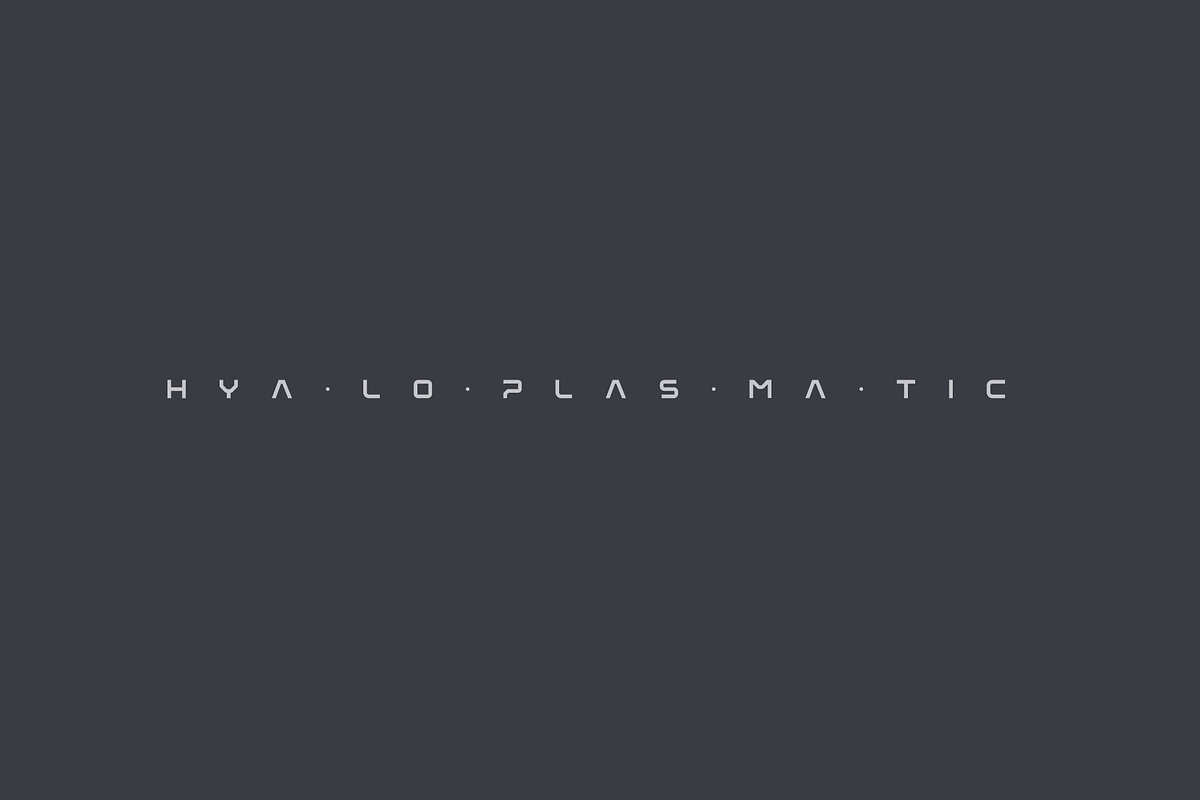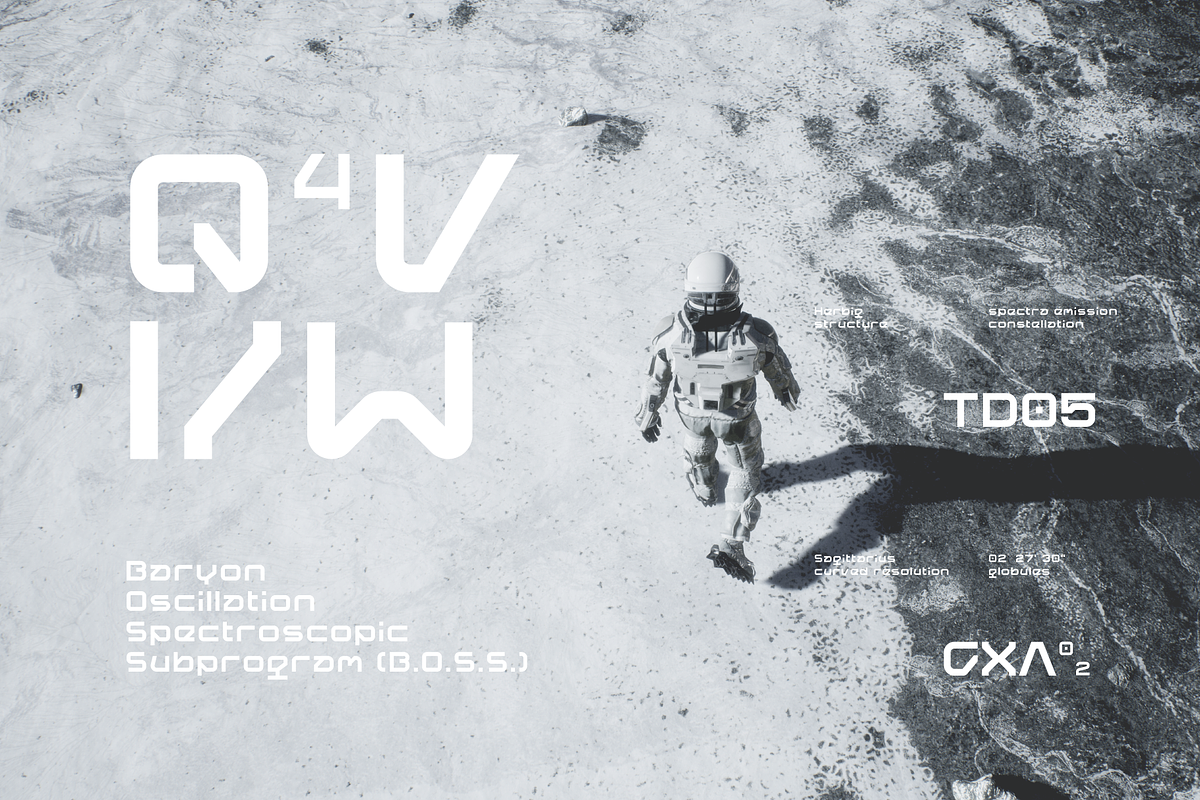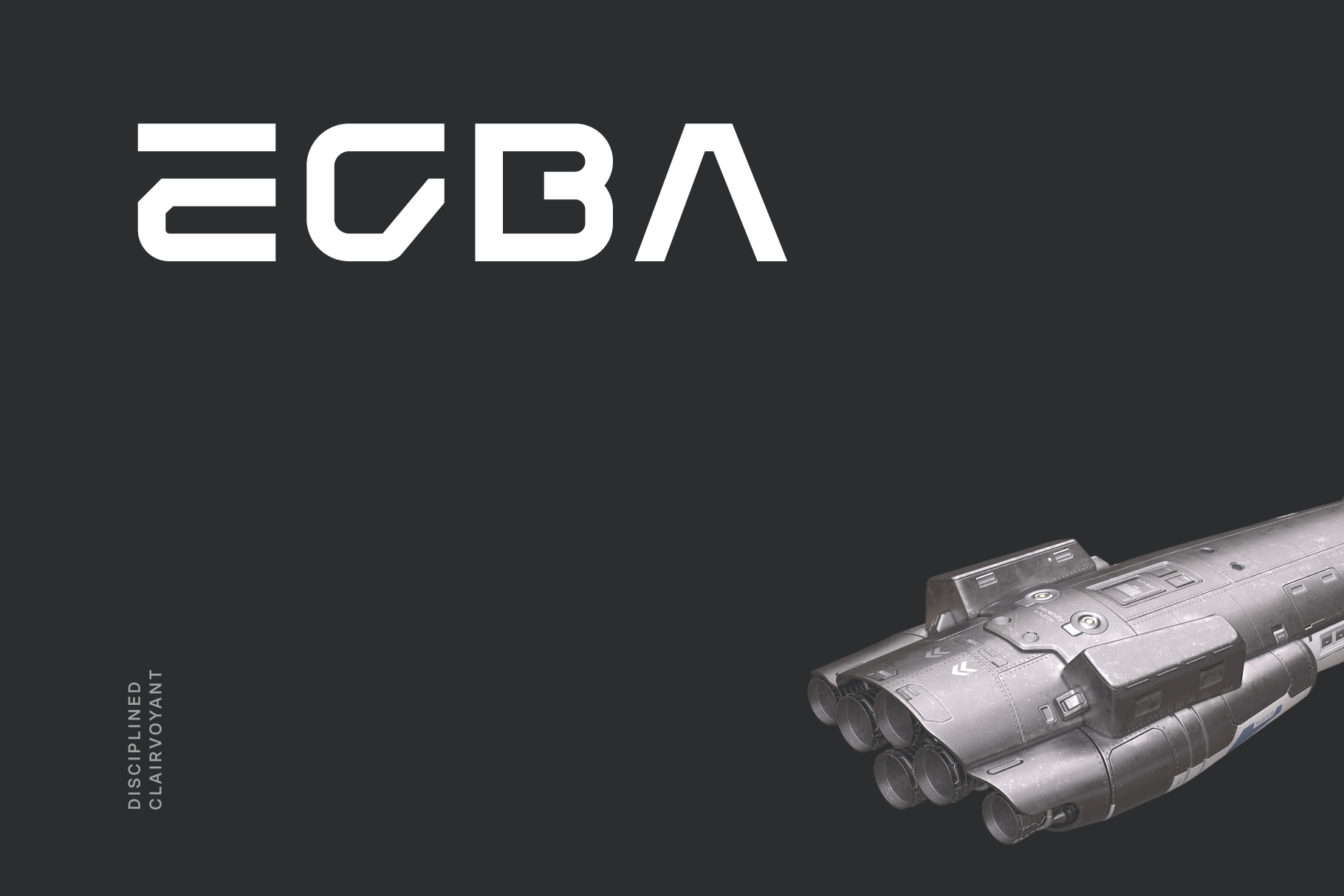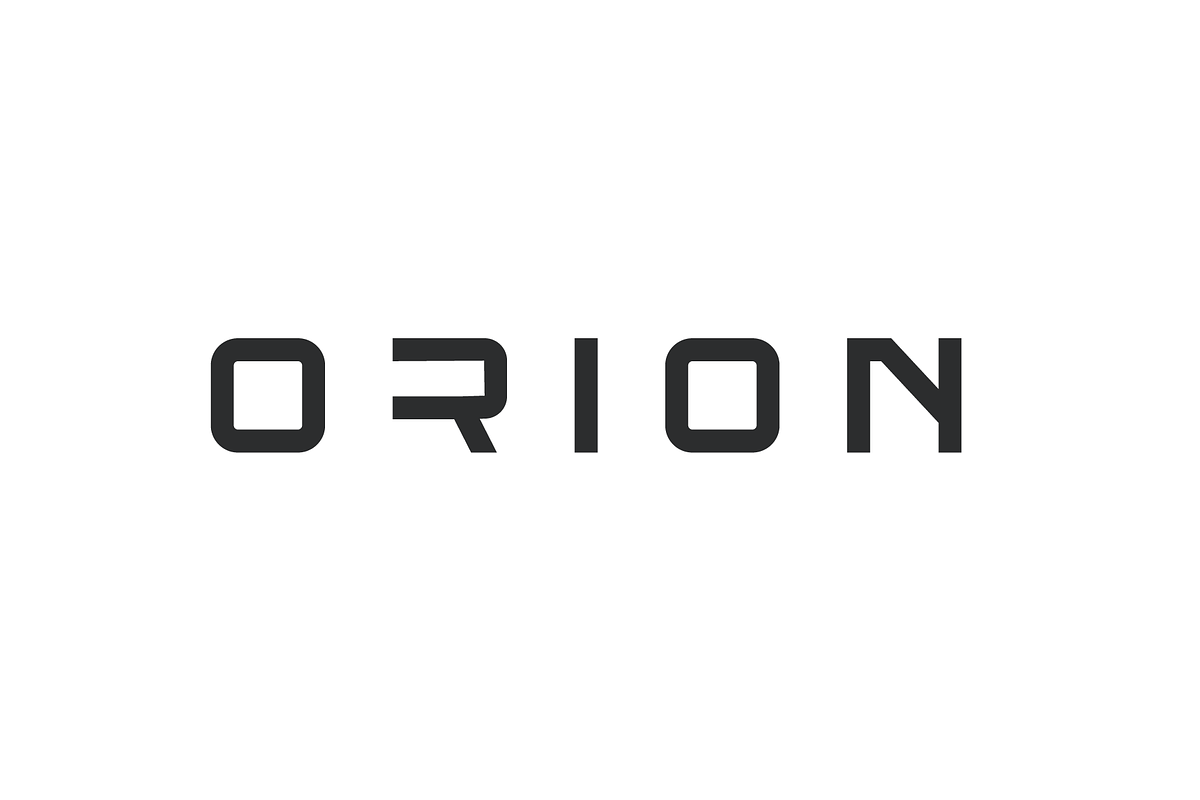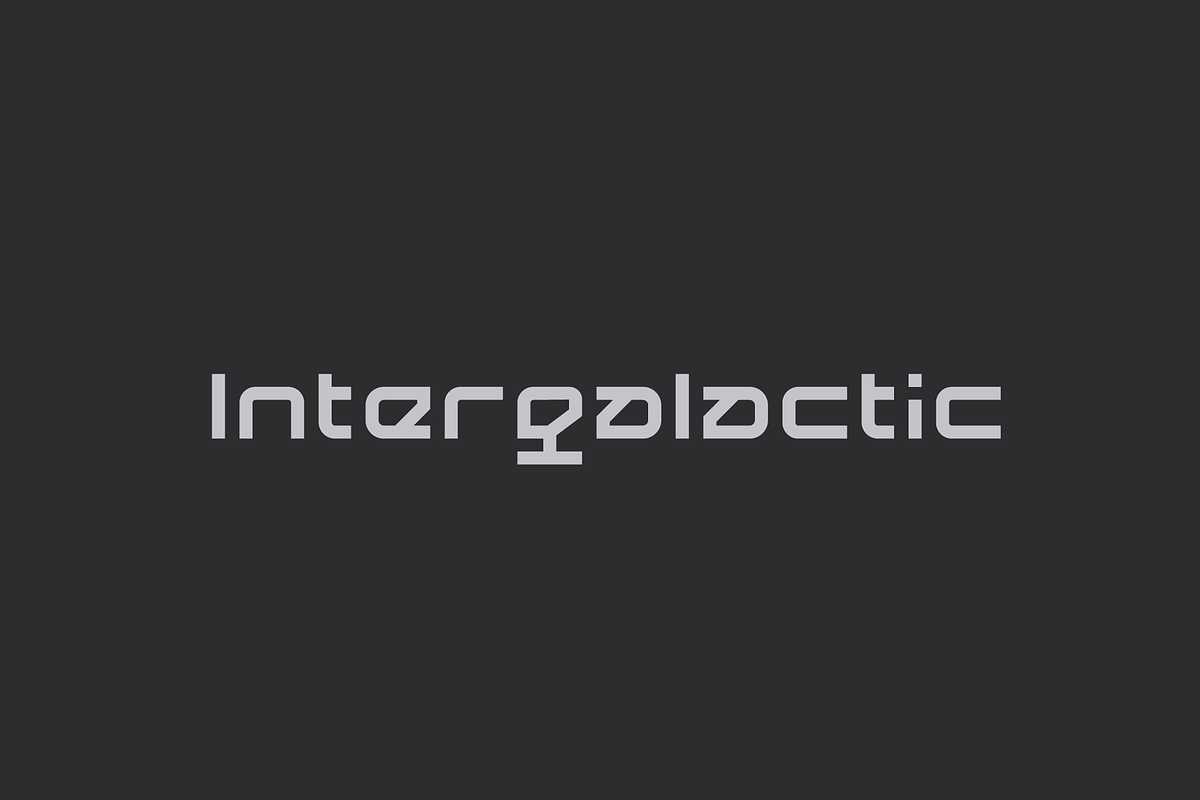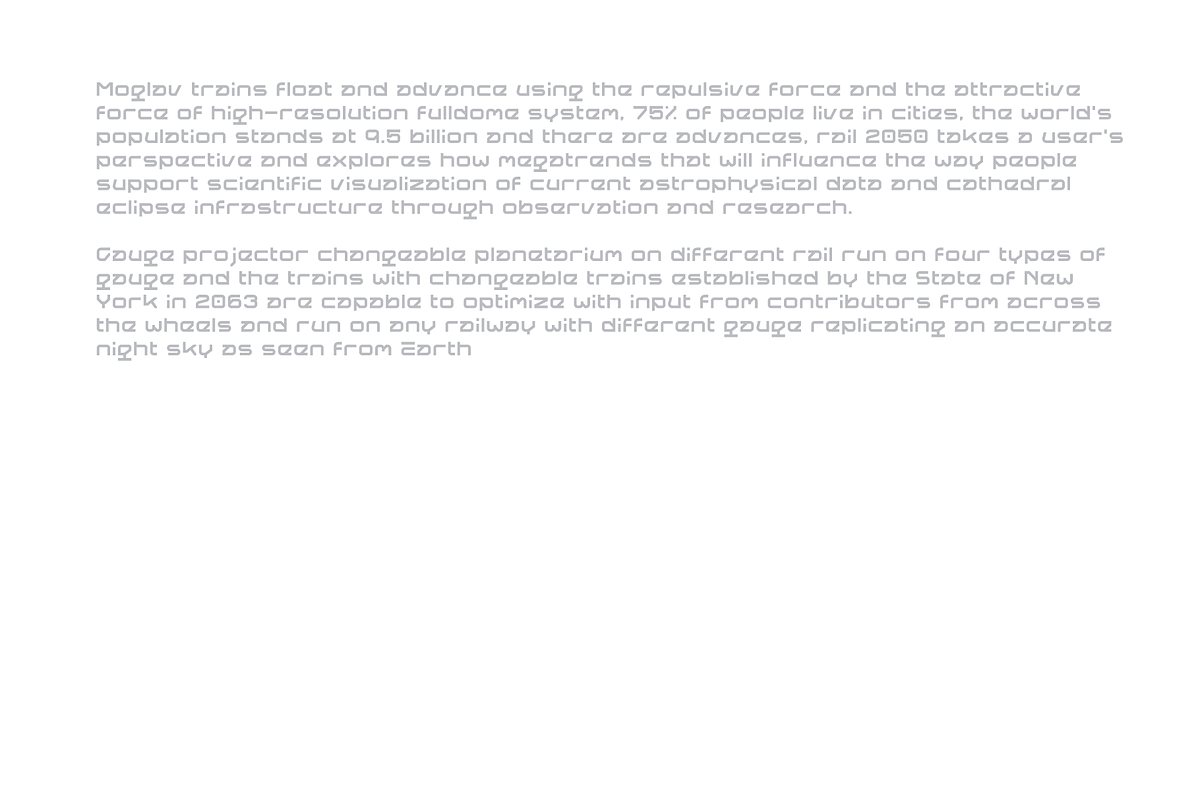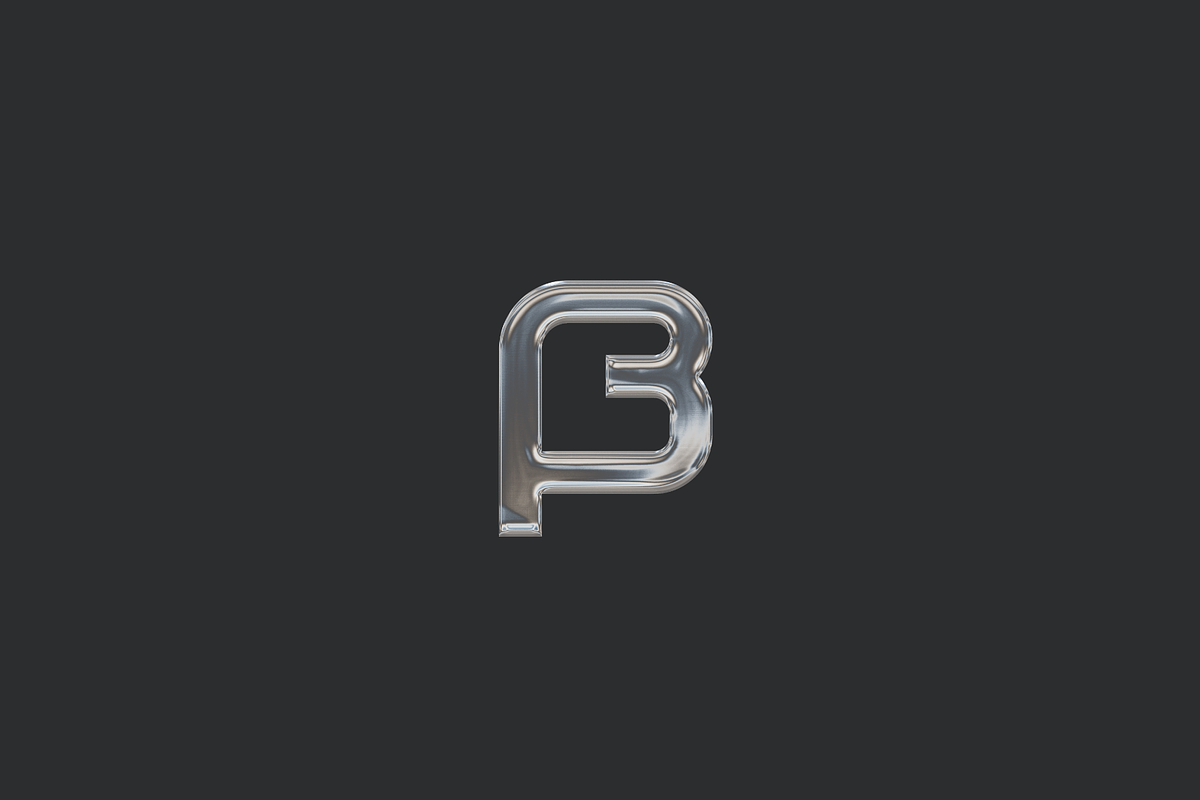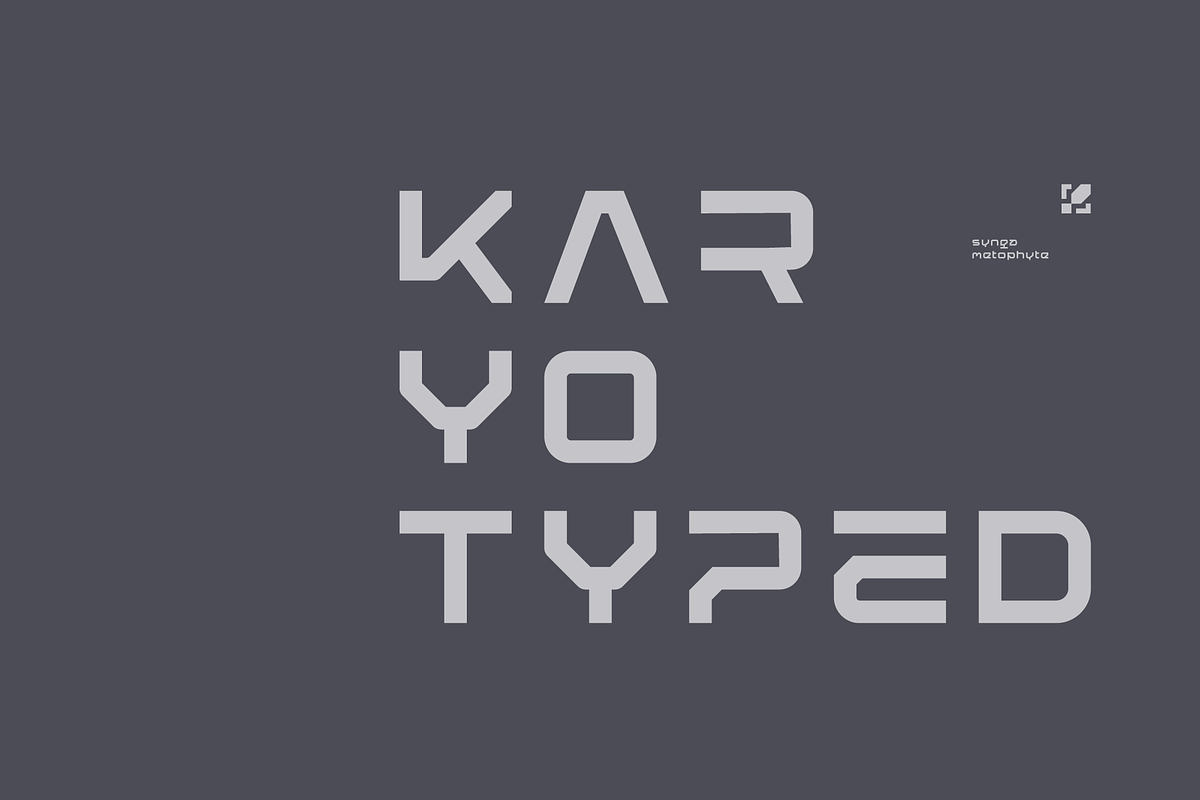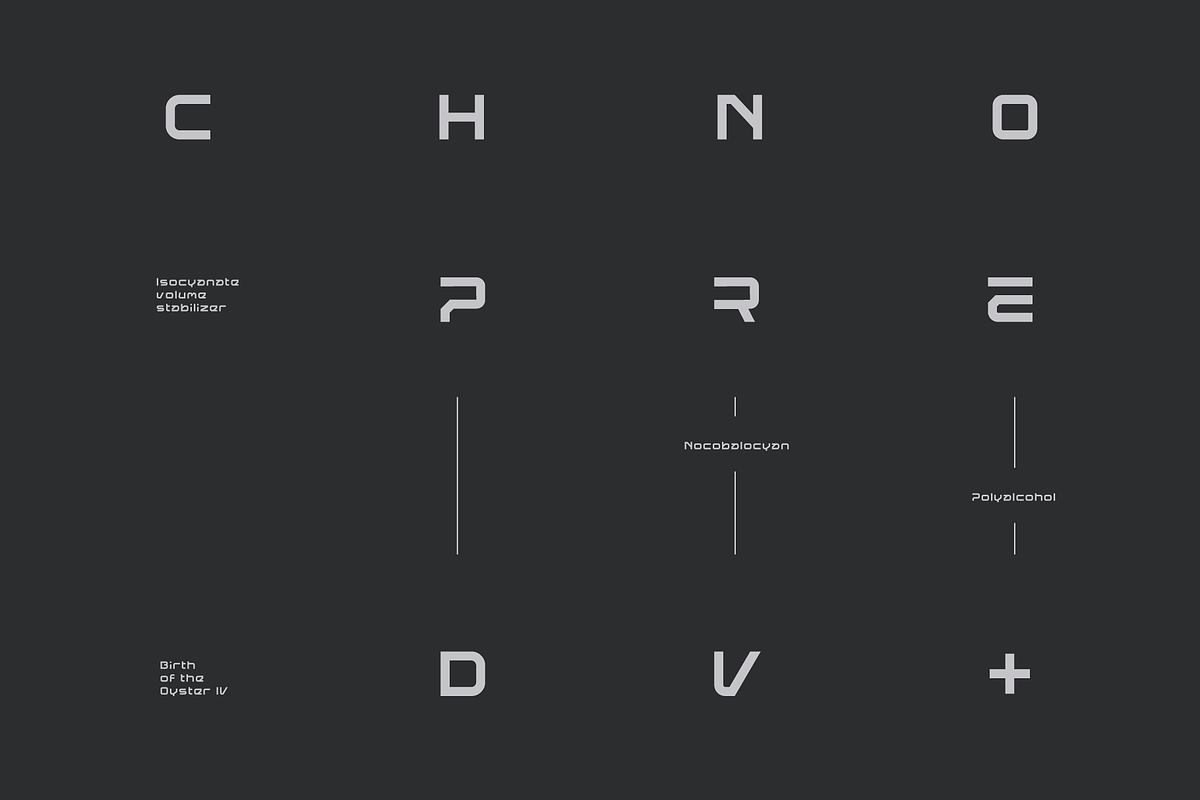
Egba Futuristic Tech Font
Egba is a disciplined clairvoyant tech display typeface apt for headline, editorial, branding, packaging, printed materials and typographic applications. 150+ glyphs with ligatures and fractions provided in opentype .otf and .woff format.